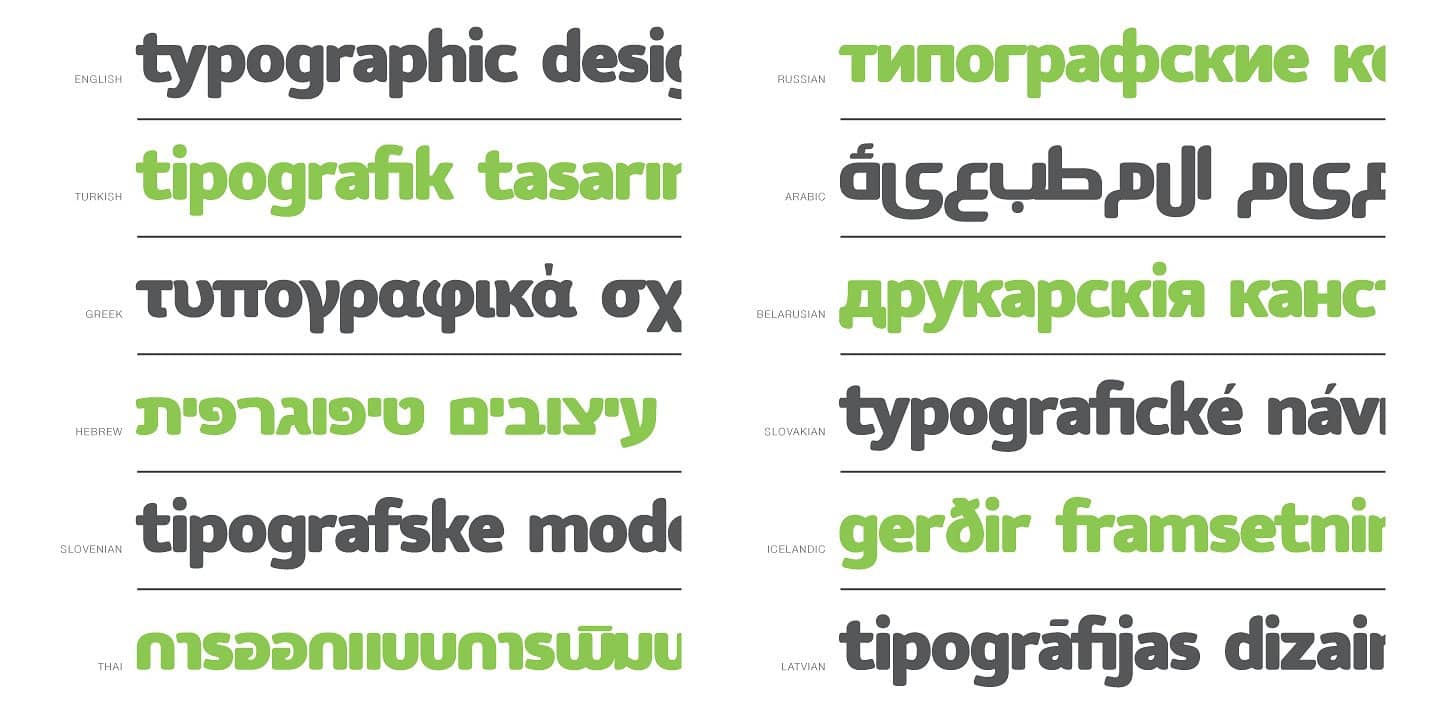
tcho
Unleash Creativity with Tcho Font
Tcho Font, created by renowned designer Alex Johnson in 2023, stands out with its artistic flair and unique style. Designed for creative minds, this font is perfect for expressive branding, modern design, and artwork that demands attention.
The Design Philosophy Behind Tcho Font
Tcho Font is inspired by contemporary artistic trends, blending organic shapes with a modern touch. Alex Johnson aimed to create a typeface that evokes creativity and boldness, making it an exceptional choice for designers seeking to make a statement.
Versatile Uses for Tcho Font
With its distinct design, Tcho Font is well-suited for diverse applications, from graphic design projects to branding and advertisements. It adds a unique character to any creative work, ensuring that your message stands out amidst the crowd.